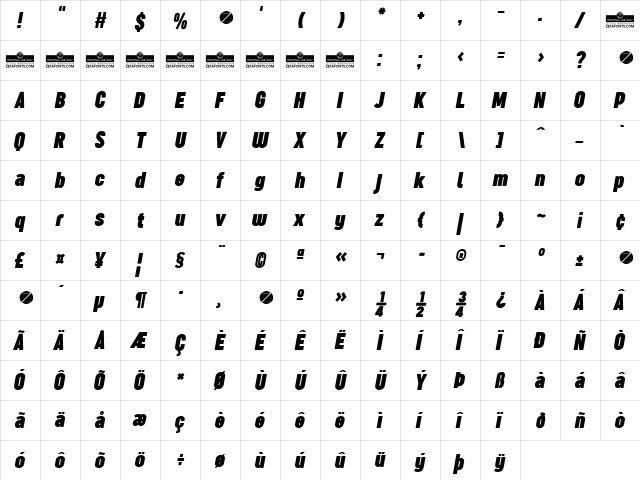
Sugo Pro Classic Trial Bold Italic Font Preview
| Foundry | Zetafonts |
| Designer | Cosimo Lorenzo Pancini |
Design Context for Sugo Pro Classic Trial Typeface
Sugo Pro Classic Trial has the warm character of retro typography — evoking diners, record sleeves, and the golden age of print advertising. The dynamic lean of this cut emphasises speed and emphasis in any layout. Its bold stroke weight gives it real presence on the page.
Font Pairing: Combine Sugo Pro Classic Trial with a simple slab or neutral sans — period-accurate companions reinforce the vintage feel without competing for attention.
Pro Tip: Use Sugo Pro Classic Trial for headlines and pull quotes rather than body copy — its personality is best appreciated in short, focused bursts.